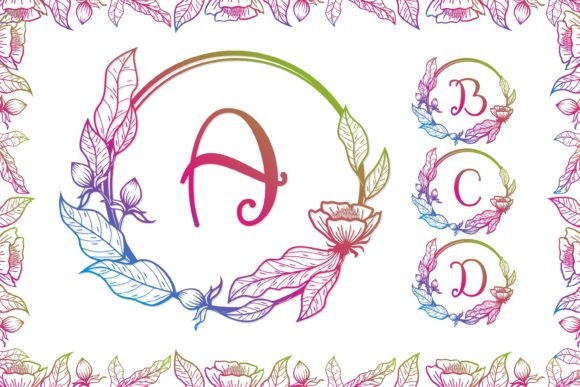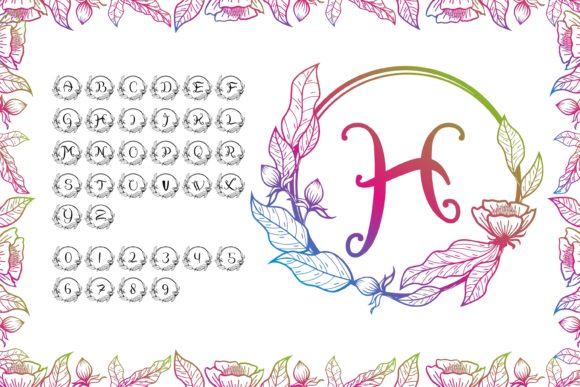
Florilla Fista Font
About the Florilla Fista Font
Unleash your creativity with Florilla Fista Font, a versatile font perfect for a wide range of applications. Florilla Fista is a beautiful sunflower decoration theme, with floral ornaments and floral plants making this font more beautiful than ever. Add it to invitations, business cards, book cover designs and other design materials.
Florilla Fista’s playful, yet elegant, style makes it ideal for headlines, short text blocks on invitations, branding materials for companies focused on floral design or related industries, and packaging for premium products. Its decorative nature, however, limits its effectiveness for body text or UI elements; long passages become visually overwhelming.
The font’s inherent energy is best balanced by pairing it with clean, modern sans-serif fonts like Open Sans or Lato for a contemporary feel, or a classic serif like Garamond or Playfair Display for a more sophisticated look. For a touch of whimsy, consider pairing it with a delicate script font, but use it sparingly to avoid visual clutter.
Florilla Fista projects a cheerful and sophisticated personality, suitable for brands aiming for a feminine, yet refined, image. Avoid using it for projects requiring a serious or minimalist aesthetic.
Florilla Fista Font Usage Examples
Florilla Fista Font Example